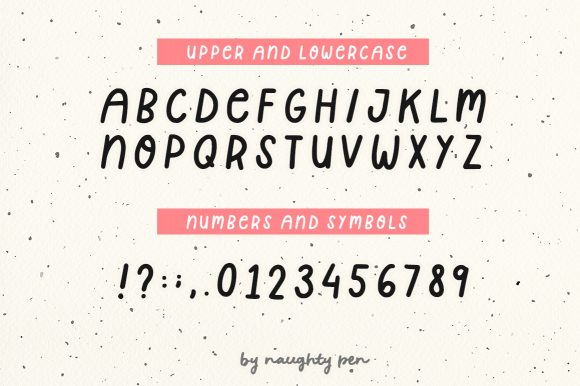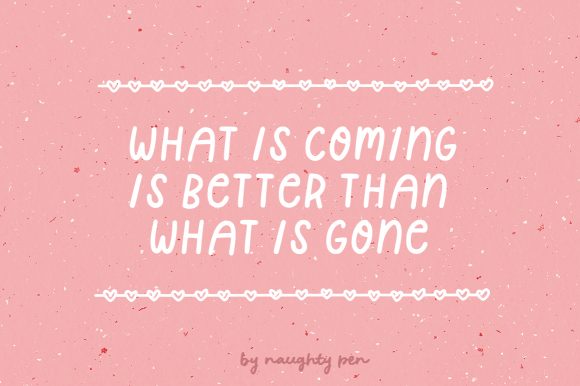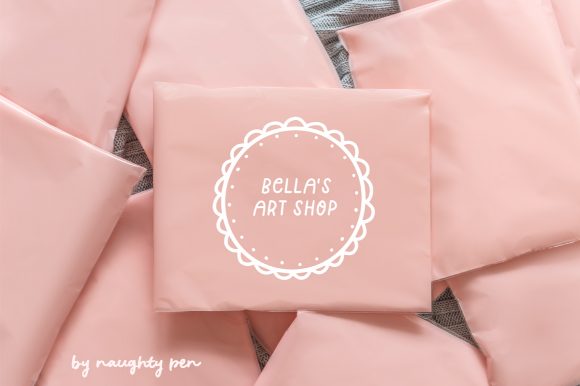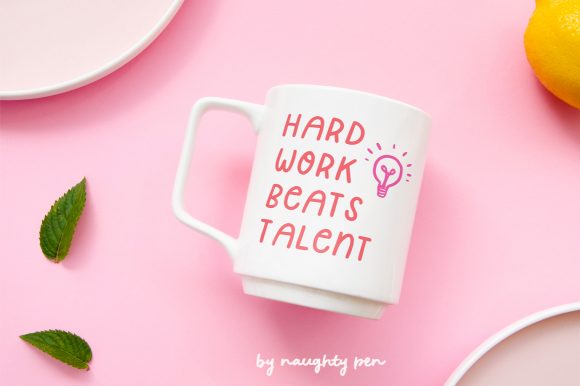
Introduction to Plain Jane Font
Have you ever stared at a blank page, feeling the pressure to create something truly unique and captivating? It’s a moment we’ve all been there, and for designers, it’s a constant challenge to stay ahead of the curve. But what if you had a secret design resource that could elevate your creative project and make it stand out from the crowd?
Enter the Plain Jane Font, a clean and natural handwritten font that’s as versatile as it is beautiful. With its transparent background and high-quality design, this font is the perfect addition to any project, from invitations to blog posts and beyond.
Whether you’re a seasoned designer or just starting out, the Plain Jane Font is a valuable asset that’s easy to download and use in your next creative endeavor. So why not give it a try and see how it can take your project to the next level?
Key Features of Plain Jane Font
- Available in a transparent background version, allowing for seamless integration with various design elements.
- Features a clean and minimalist design, making it perfect for a wide range of creative projects, from logos to typography.
- Supports a wide range of languages, including Latin, Cyrillic, and Greek alphabets, making it a versatile design resource.
Honest Review: Plain Jane Font
As a designer, I’m always on the lookout for high-quality design resources to elevate my creative projects. Recently, I had the chance to try out the Plain Jane Font, and I’m excited to share my honest review.
- High quality: The font is well-designed, with a clean and modern aesthetic that’s perfect for a wide range of creative projects.
- Transparent background: The font’s transparent background makes it easy to customize and use in a variety of design contexts.
- Limited character set: One thing that’s worth noting is that Plain Jane Font has a relatively limited character set, which may not be suitable for more complex design projects.
- No bold or italic variants: Another limitation is that the font doesn’t come with bold or italic variants, which can be a drawback for designers who need more flexibility.
Overall, I’m impressed with Plain Jane Font, and I think it’s a great addition to any designer’s toolkit. While it may have some limitations, its high quality and transparent background make it a valuable resource for a wide range of creative projects.
The Plain Jane Font is ideal for:
Designing business cards and letterheads
Creating social media graphics
Developing branding materials